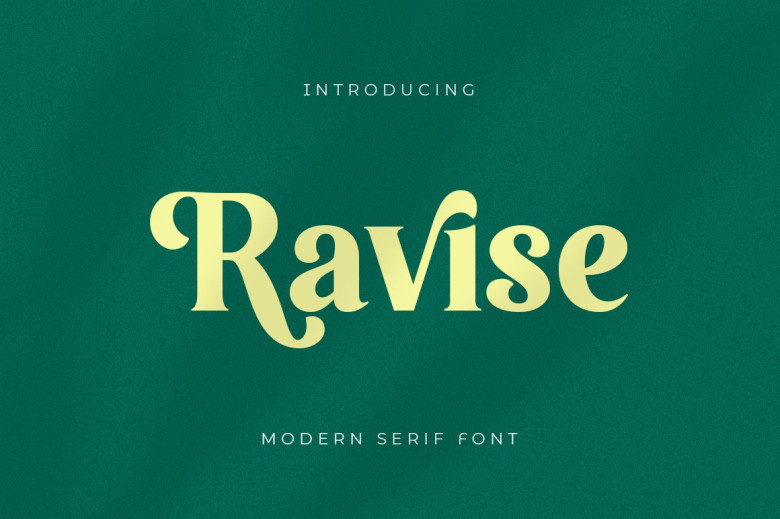
Ravise Font
Ravise is a modern typeface with serifs that can go classic to avant-garde. It is suitable for being used in logo, typography quotes, stationery, headline on website, magazine or book cover, website headers, clothing brand, packaging design and much more!
Ravise Serif Font